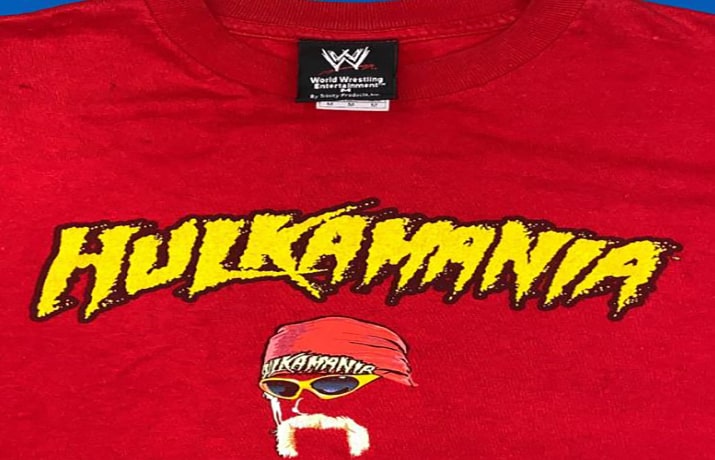
Today we are presenting Halkamania Font! It is based on the logo of Hulk Hogan, an American professional wrestler.
He was a pro wrestler, actor, television personality, entrepreneur, and musician. And he was the most recognizable wrestling star and most popular wrestler worldwide during the 1980s.
He became a 13-time world champion, winning back-to-back Royal Rumbles in 1990 and 1991.
During and after wrestling, he acted in several Hollywood films including Rocky 3, Suburban Commando, and Nanny. Hogan is thus known worldwide as the hero of the 90s.
Style:Logo, Display, Typeface
You can apply this super cool font in various work tasks like movie posters, title display, logo making, branding, tattoos, stickers, poster crafting, T-shirt printing, hoardings, titles, horror movie posters, and others.
This font comes only in regular style with the Truetype feature. It has been created for the first time by an American-based designer, Mr. Jed Gero.